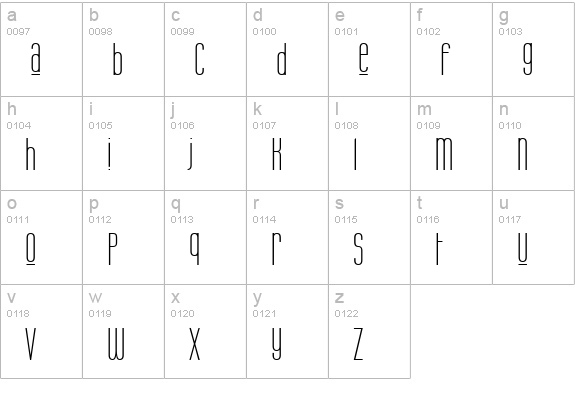
Labtop Unicase Upper is a modern and stylish font that exudes elegance and sophistication. Its clean lines and unique design make it perfect for a wide range of design projects, from branding to editorial work. The font features uppercase letters with a sleek and minimalist look, giving your projects a contemporary and polished feel. What's even better is that Labtop Unicase Upper is available for free download at FontsMarket.com. With just a few clicks, you can add this beautiful font to your collection and elevate your designs to the next level. Don't miss this opportunity to enhance your creative projects with the stunning Labtop Unicase Upper font - download it for free today!